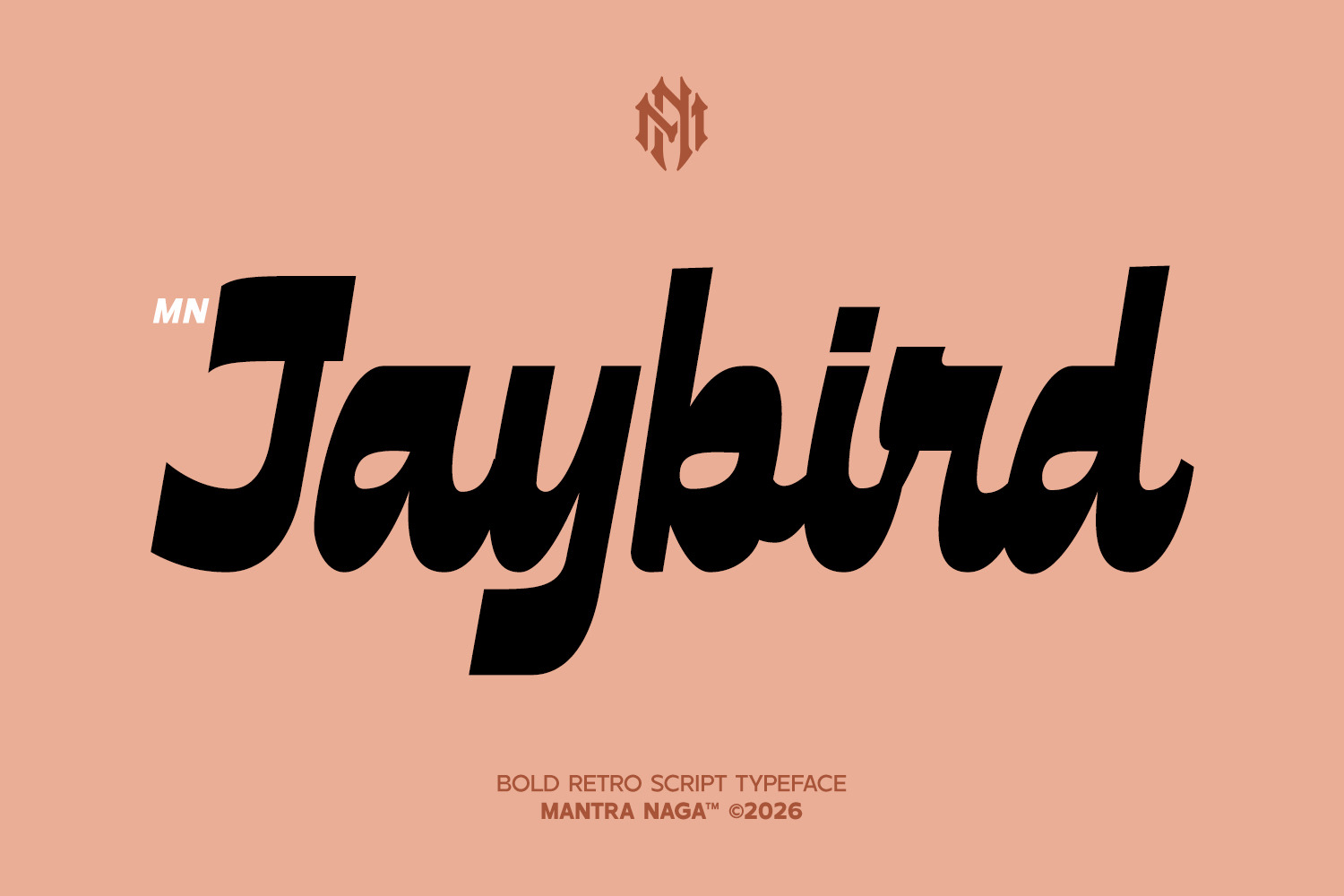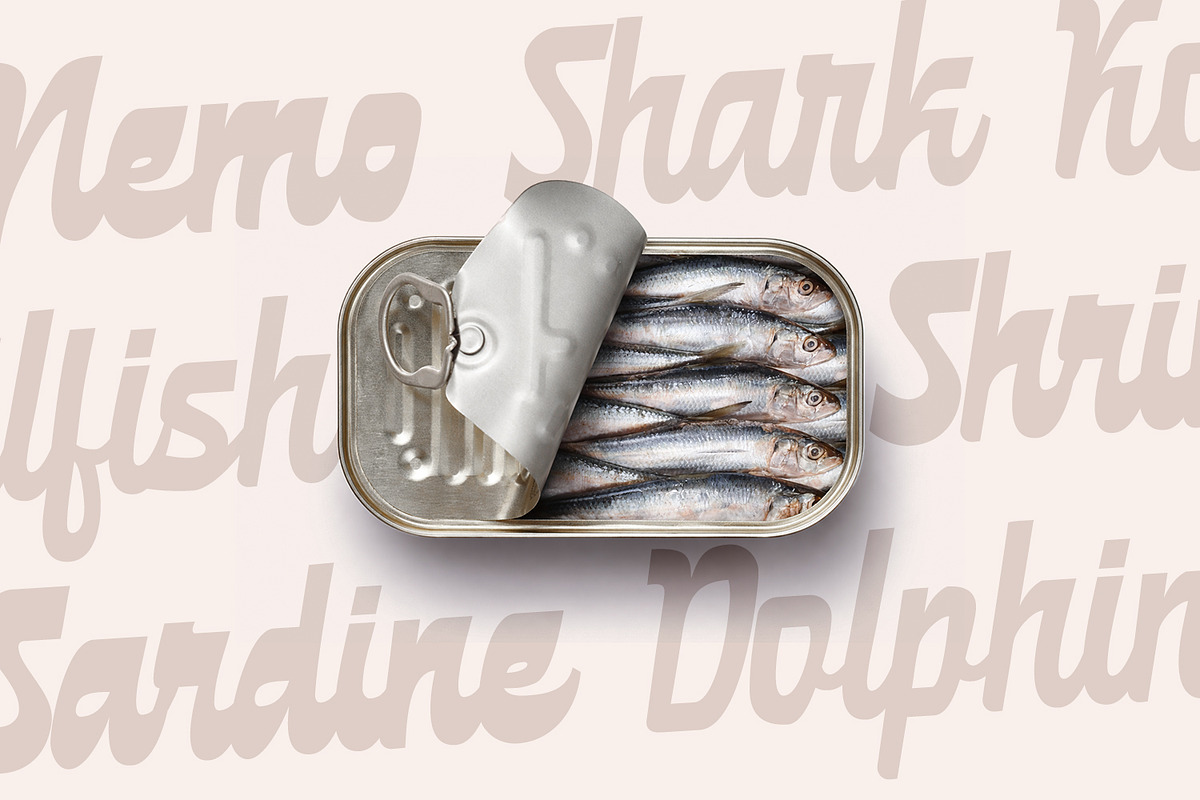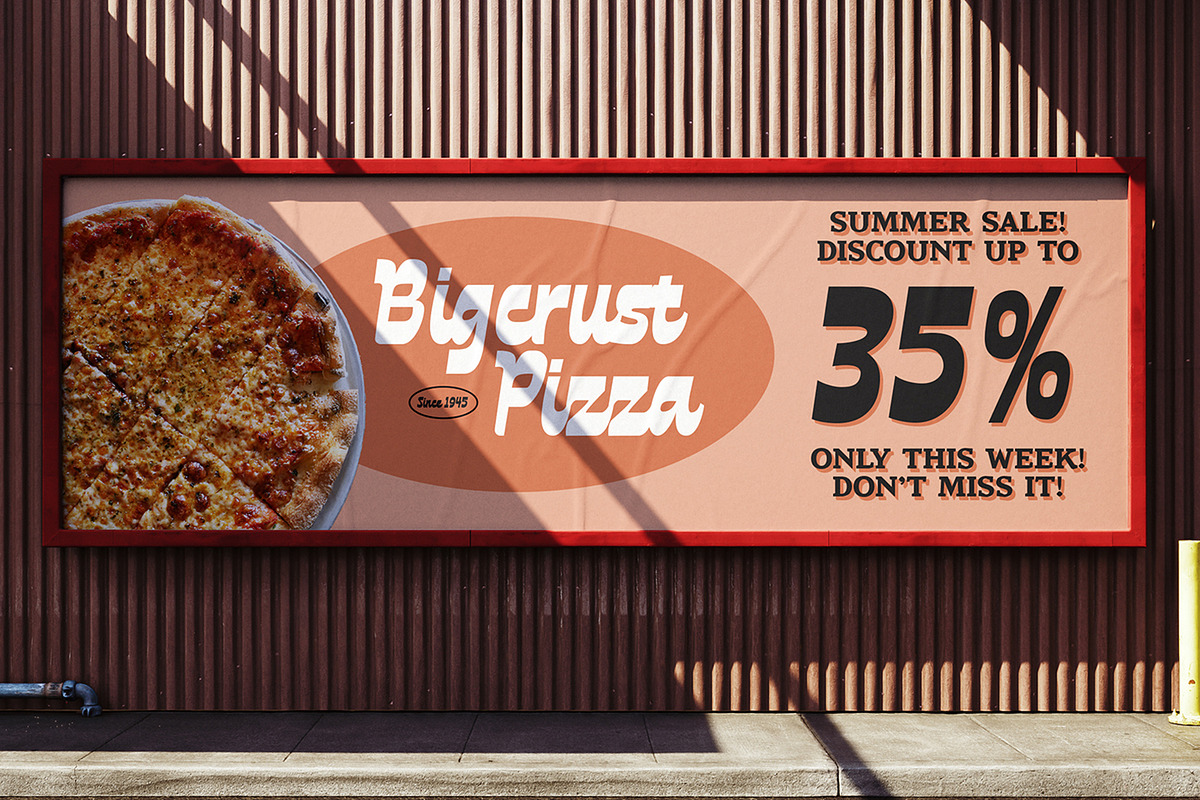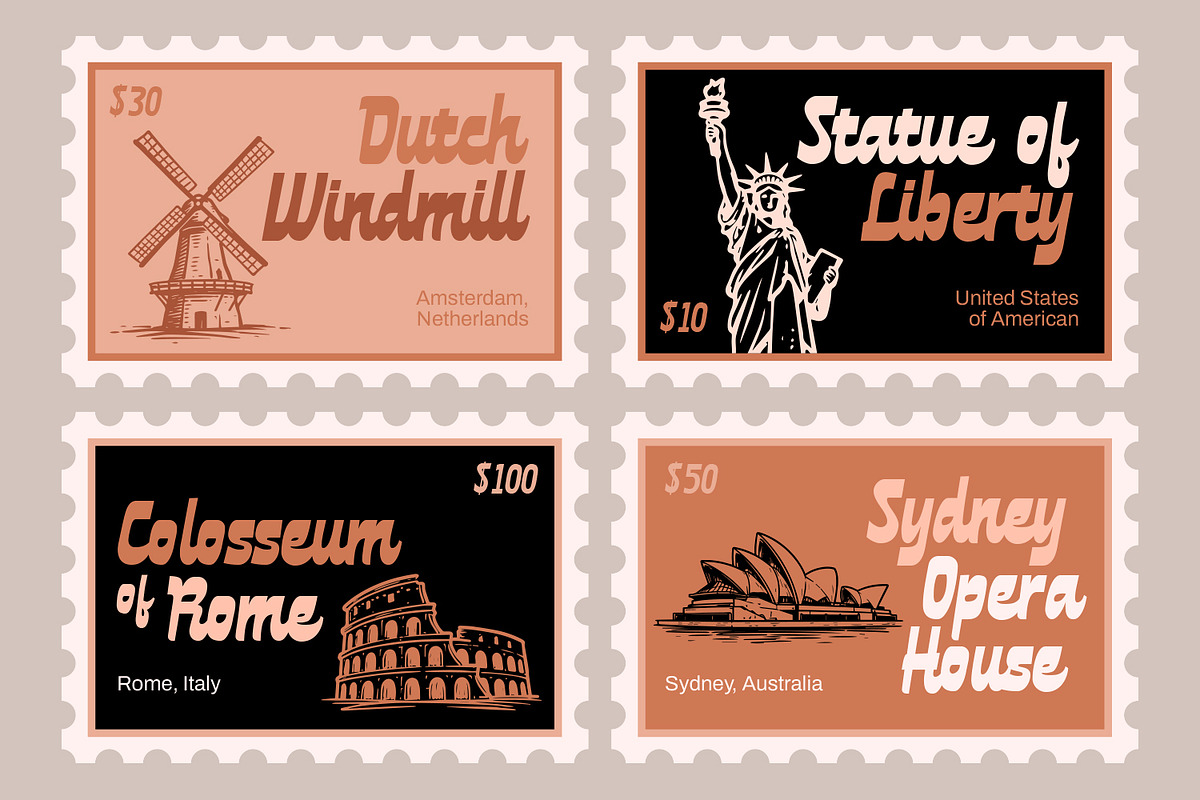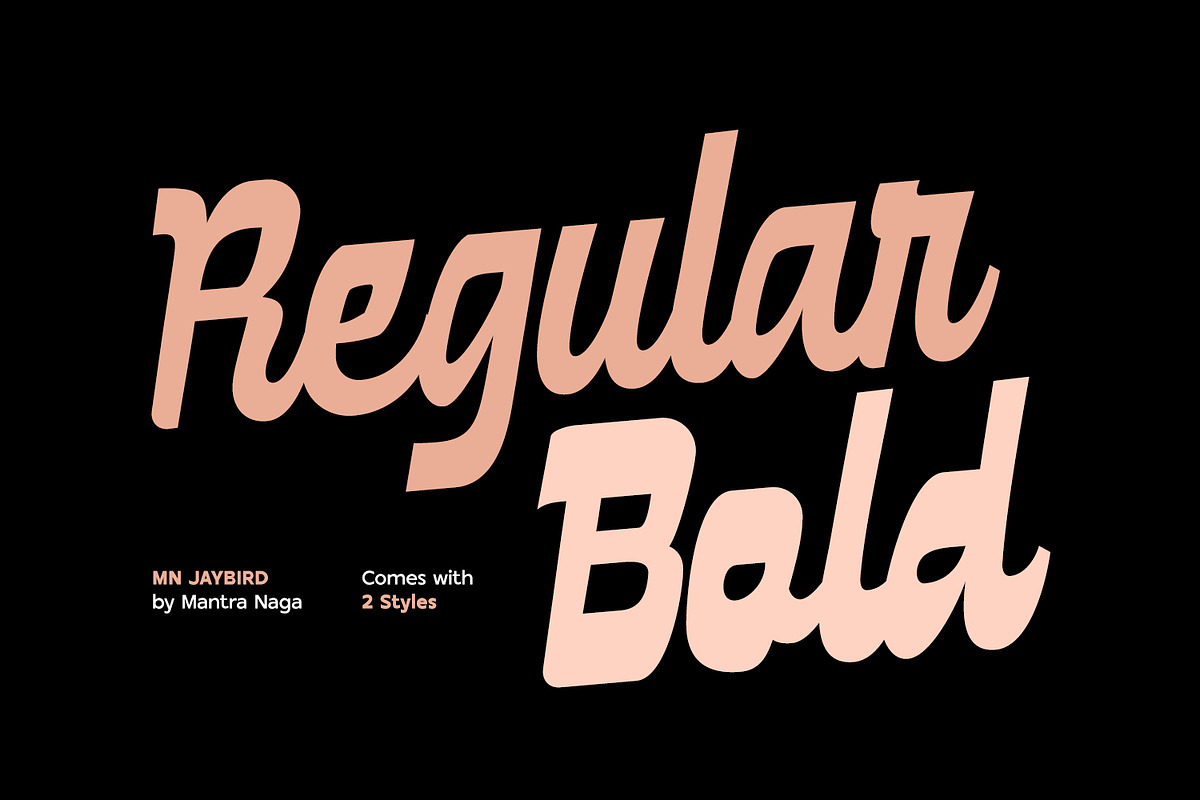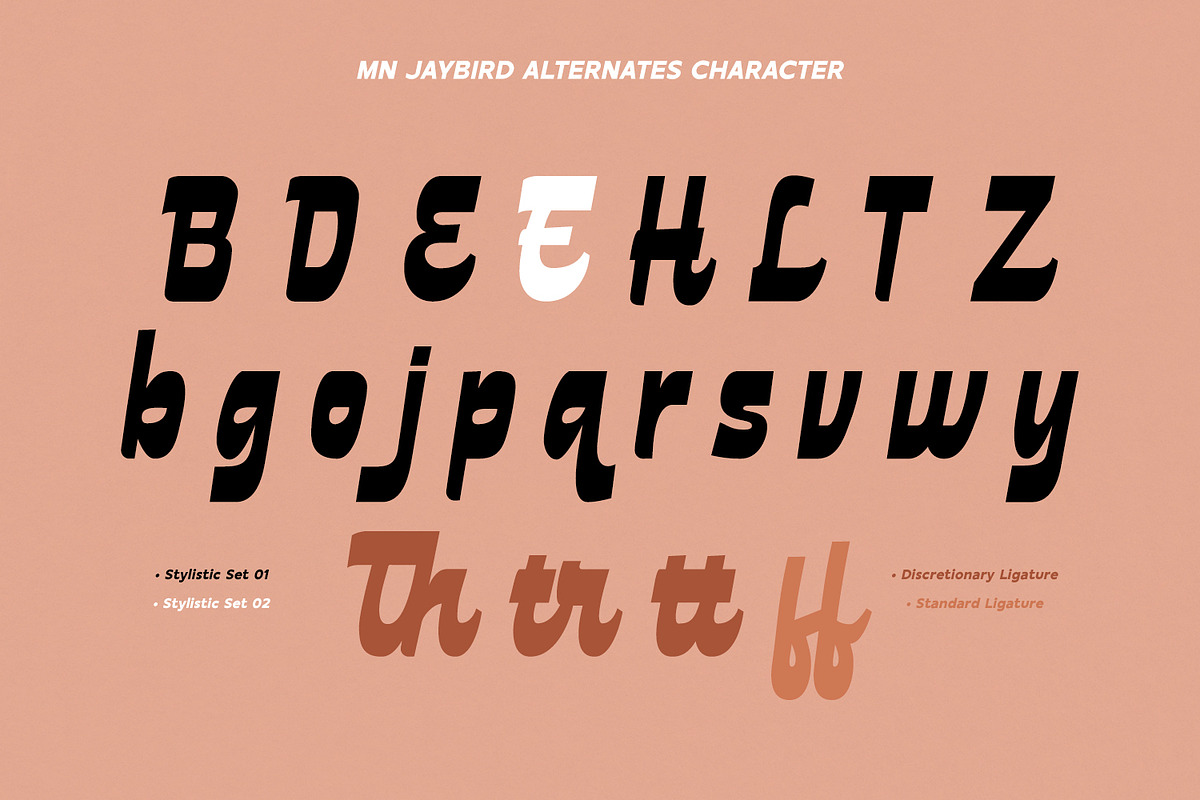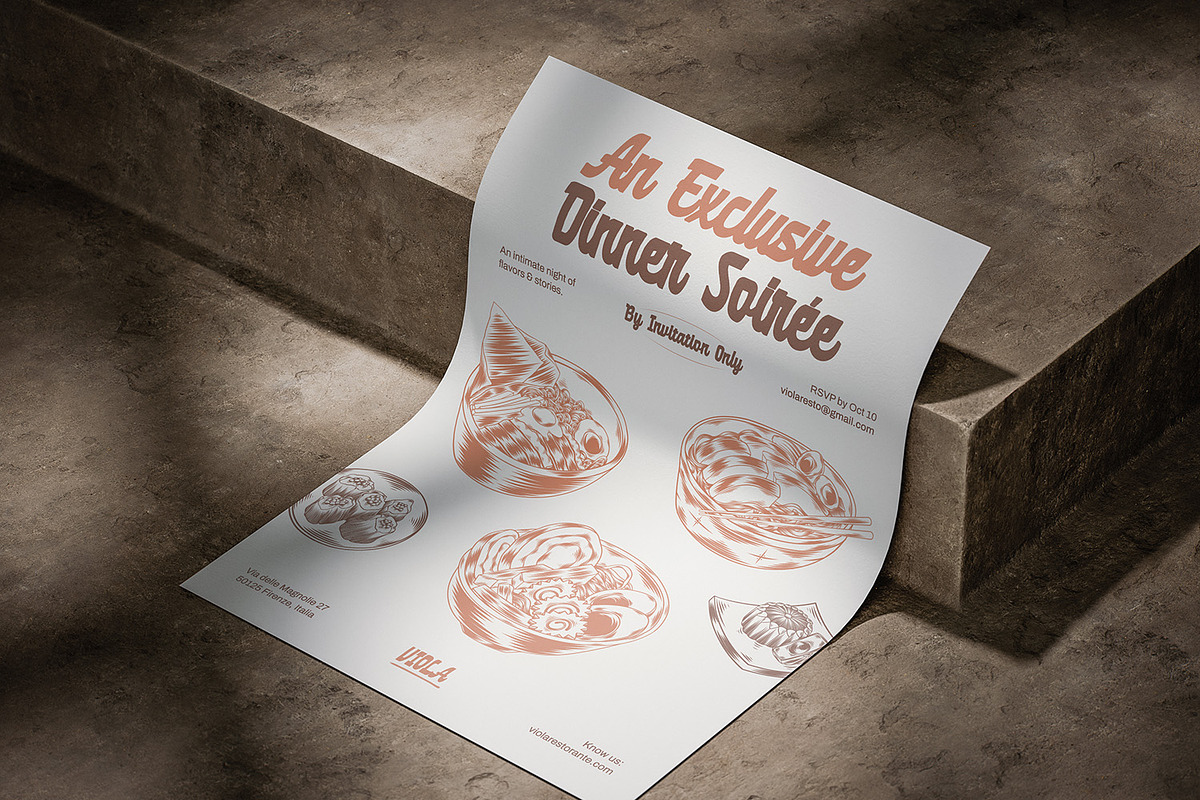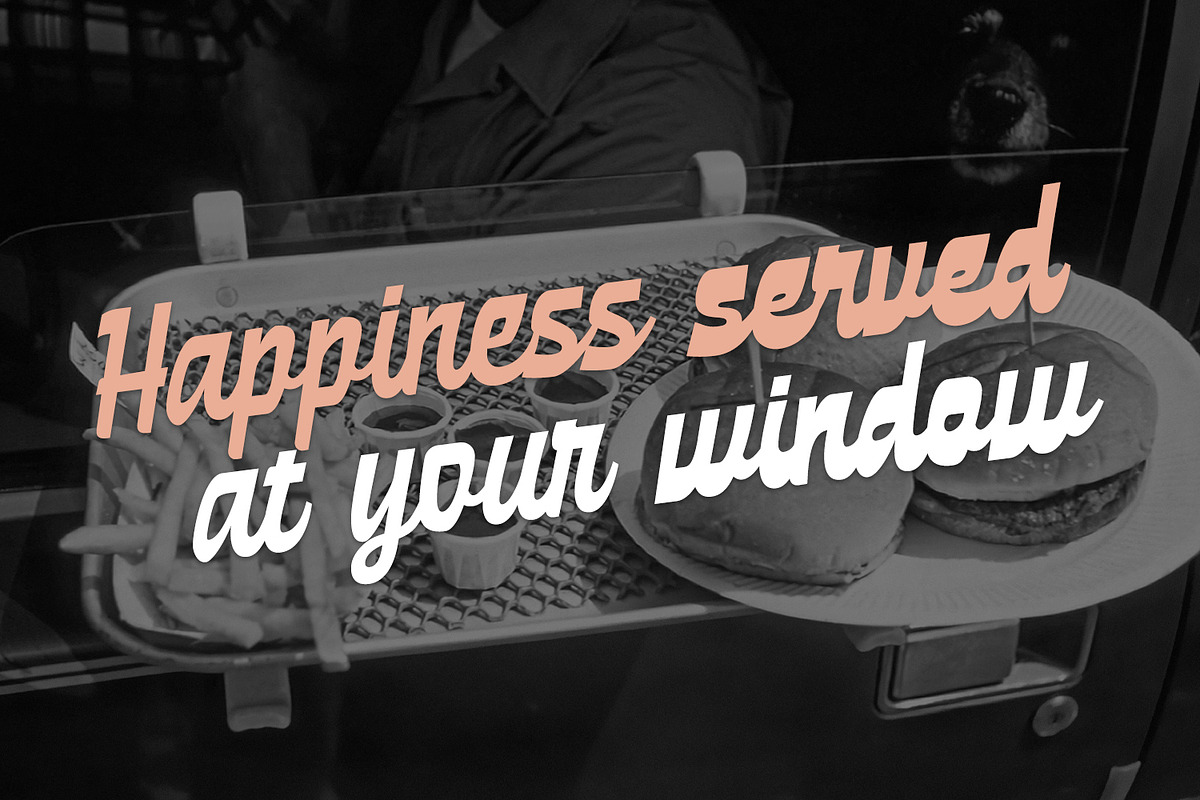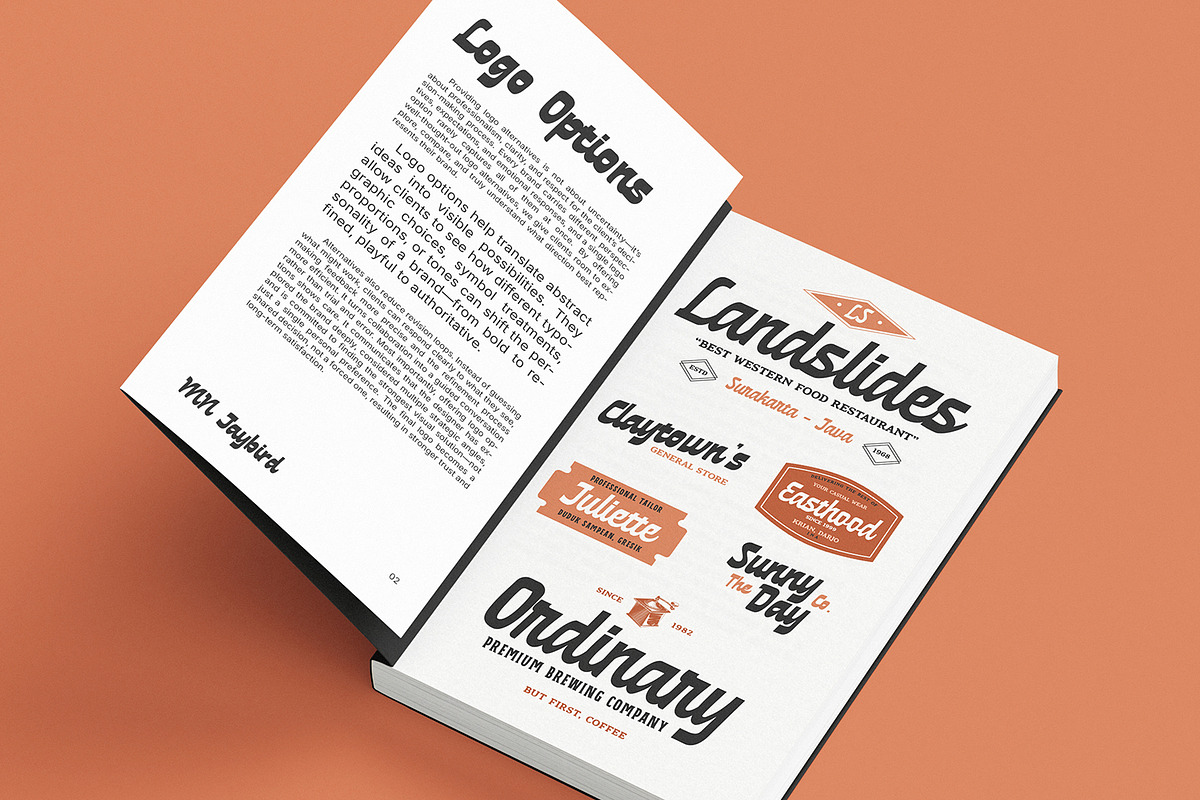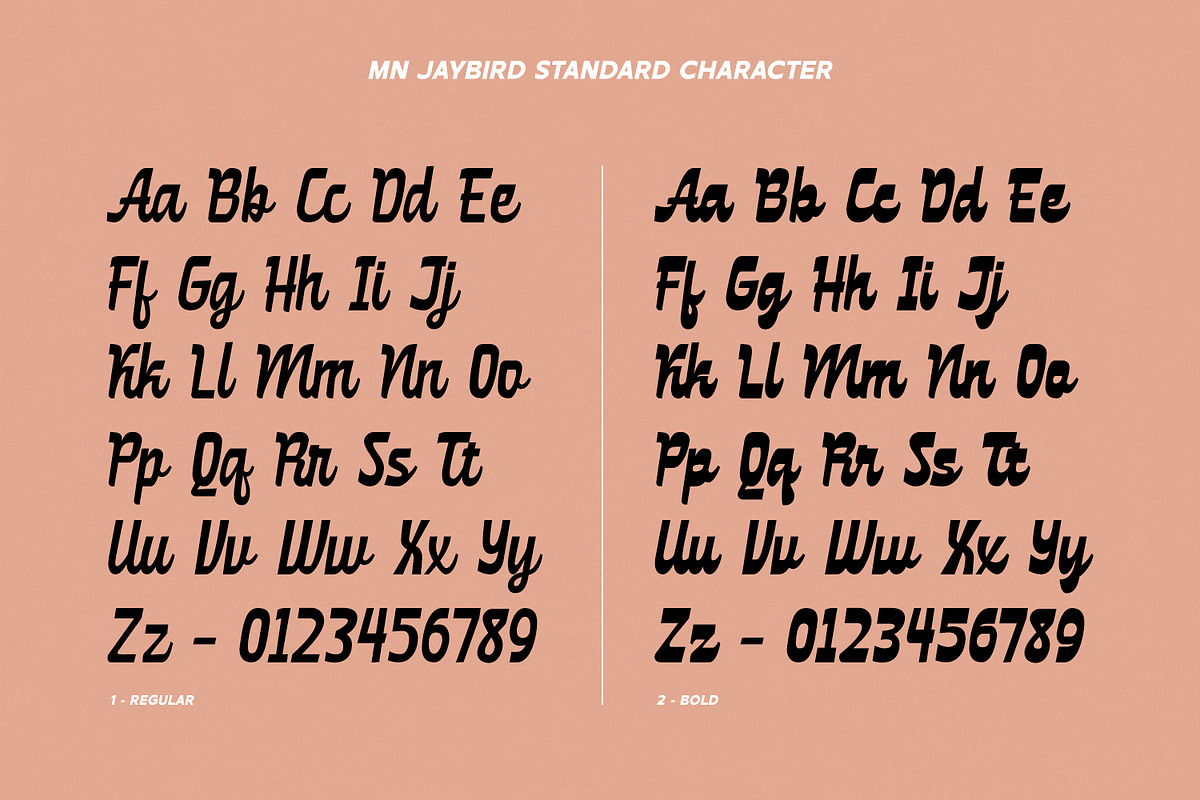
MN Jaybird - Bold Retro Script Font
Jaybird is a retro script typeface inspired by 1950s–70s American diner signage, hand-painted storefront lettering, and classic roadside typography. Designed to capture the warmth and bold spirit of vintage Americana, this typeface blends smooth curves, confident strokes, and a playful rhythm that instantly evokes nostalgic charm.
Perfect for retro branding, diner and café logos, packaging, merchandise, and vintage poster design, Jaybird delivers strong personality with clear readability. It’s a vintage script typeface built for brands that want to stand out with warmth, character, and a timeless roadside feel.